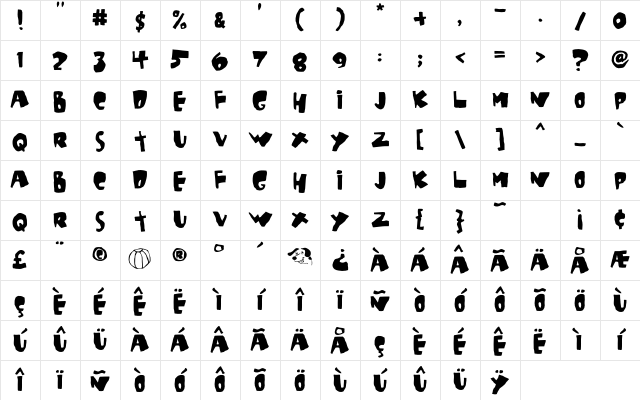
Beachouse Regular Free Font
Beachouse Regular
Design Context for Beachouse
Beachouse is a composed and adaptable typeface that performs quietly and consistently across a wide range of design contexts.